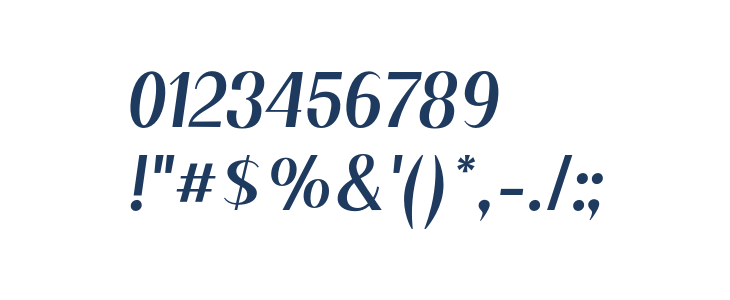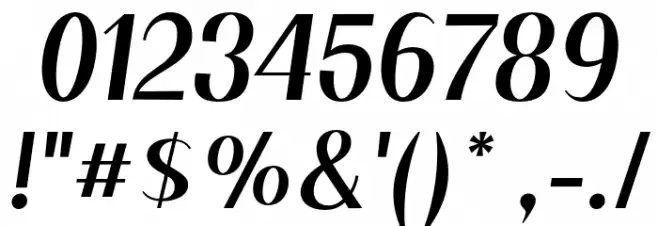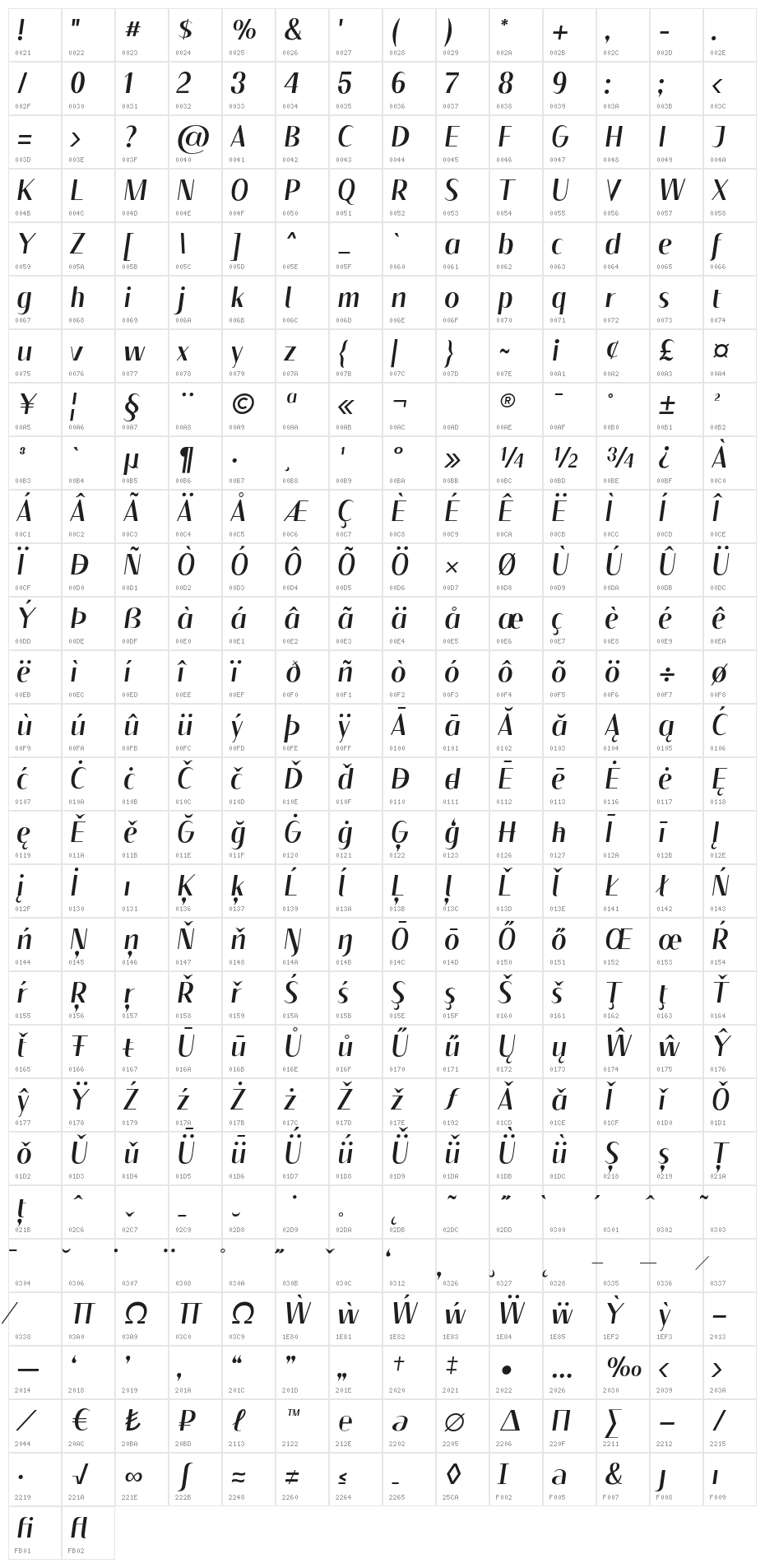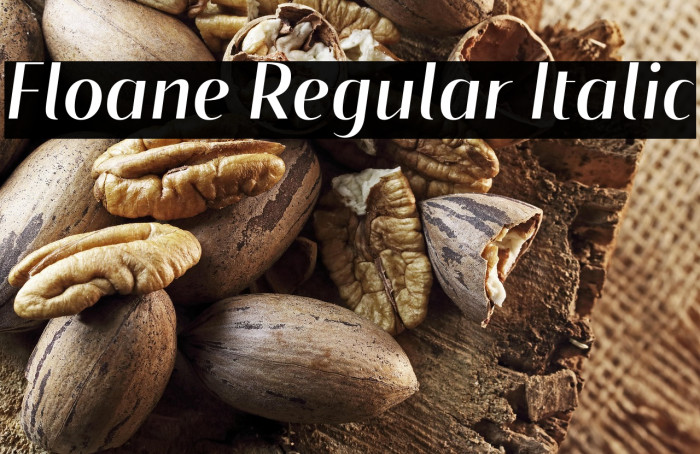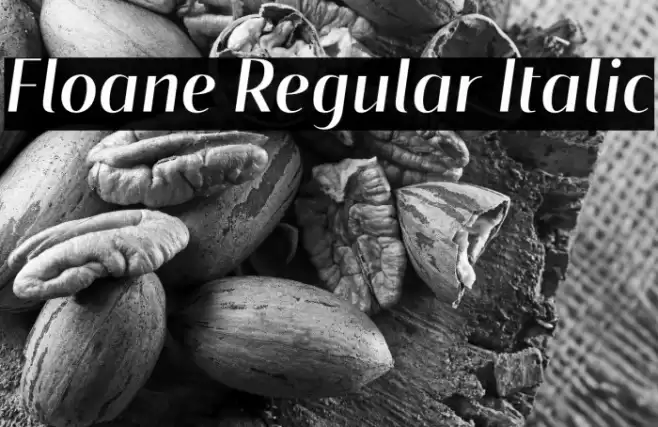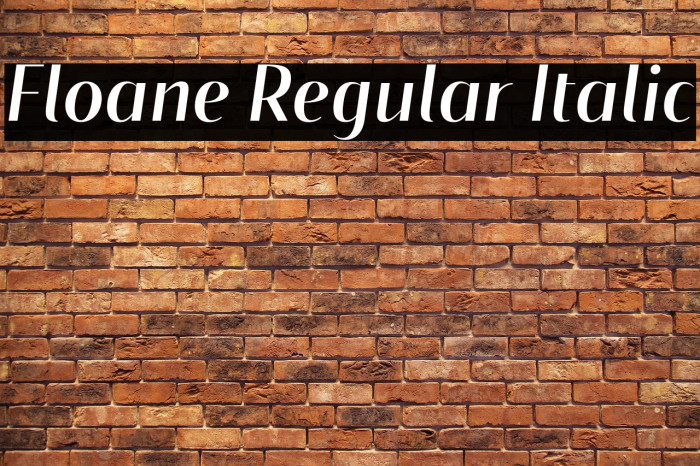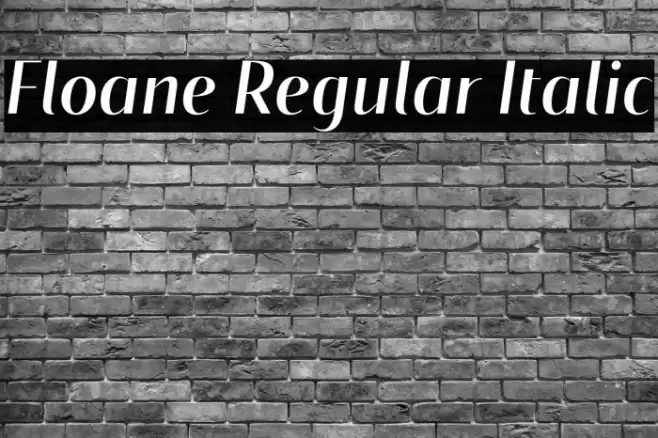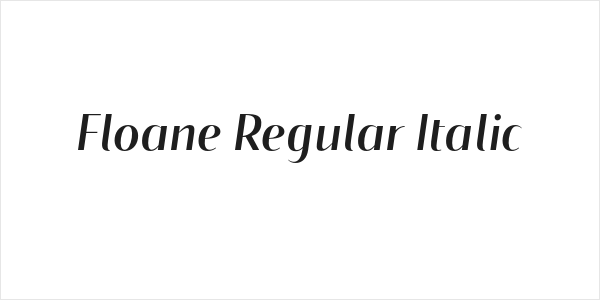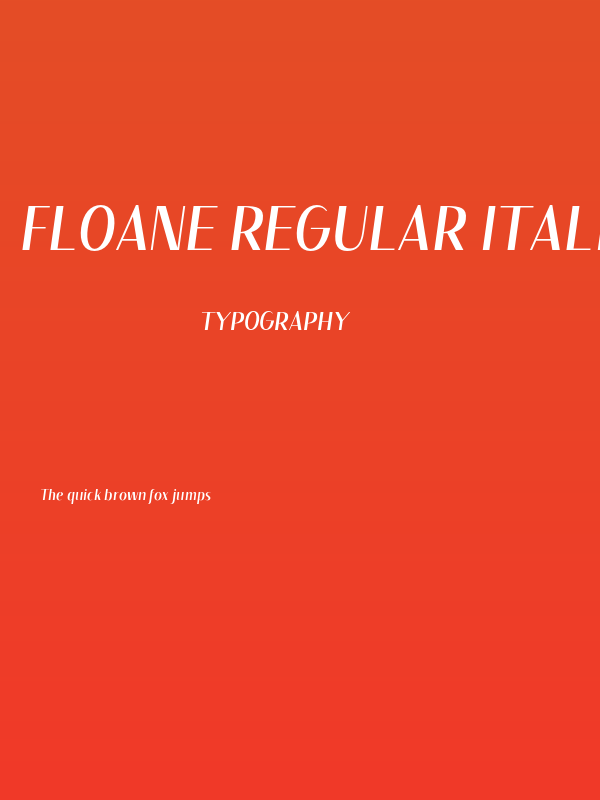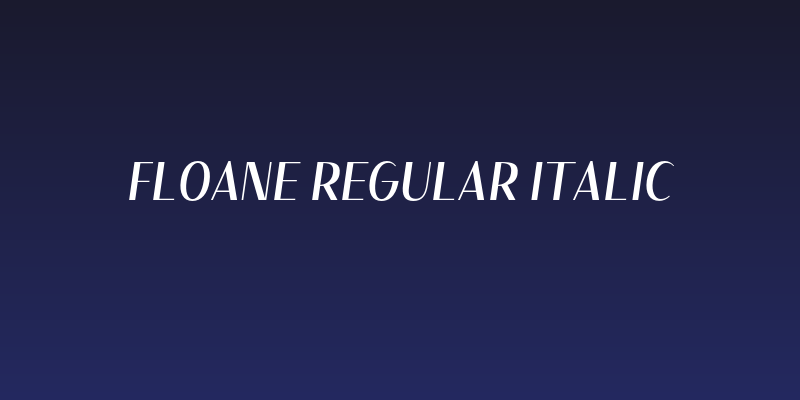
Floane Regular Italic Font
Floane Regular Italic Description
This font exhibits a sleek and elegant design with a subtle italic slant, giving it a sophisticated and dynamic appearance. The characters are well-proportioned, with a slight forward tilt that adds a sense of motion and fluidity. The strokes are smooth and consistent, with moderate contrast between thick and thin lines, enhancing readability while maintaining a stylish look. The uppercase letters are tall and commanding, while the lowercase letters are more rounded and approachable. The numerals are clear and distinct, making them suitable for various applications. Special characters are thoughtfully designed, complementing the overall aesthetic of the font.
| Proposed Projects | Ideal for fashion magazines, luxury branding, elegant invitations, and sophisticated website headers. |